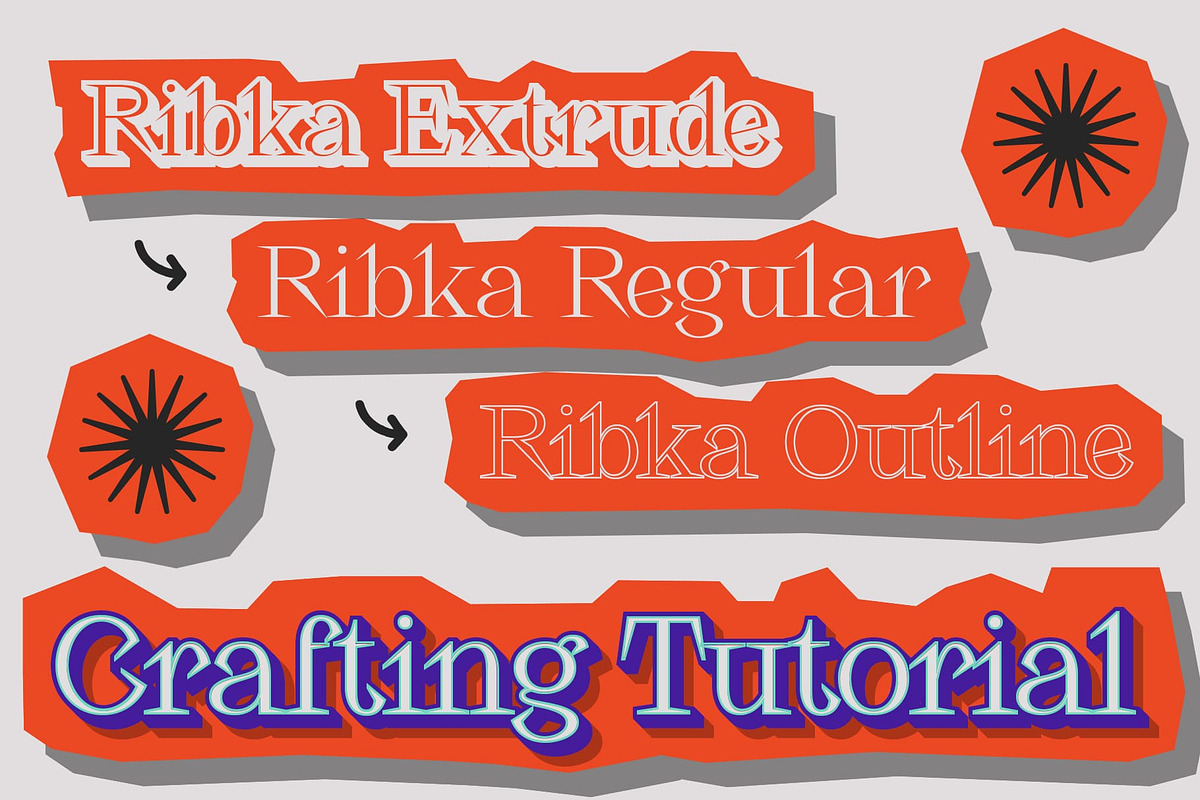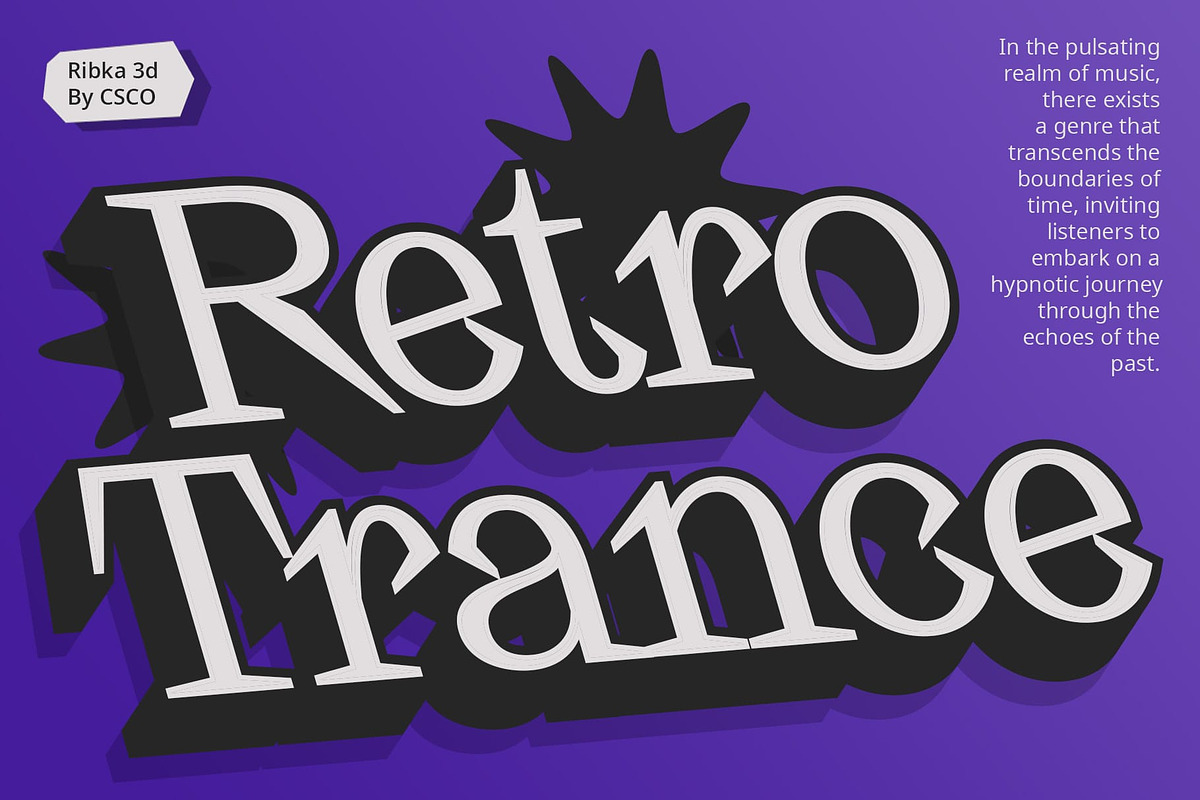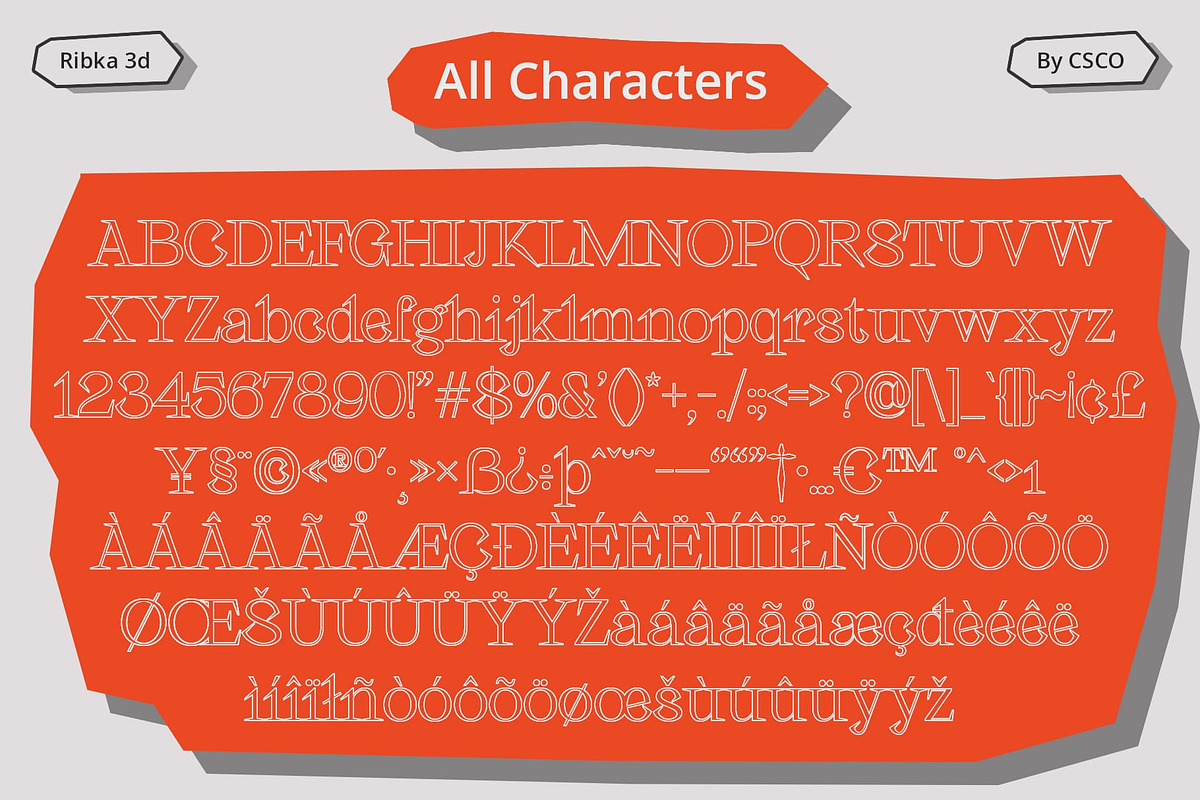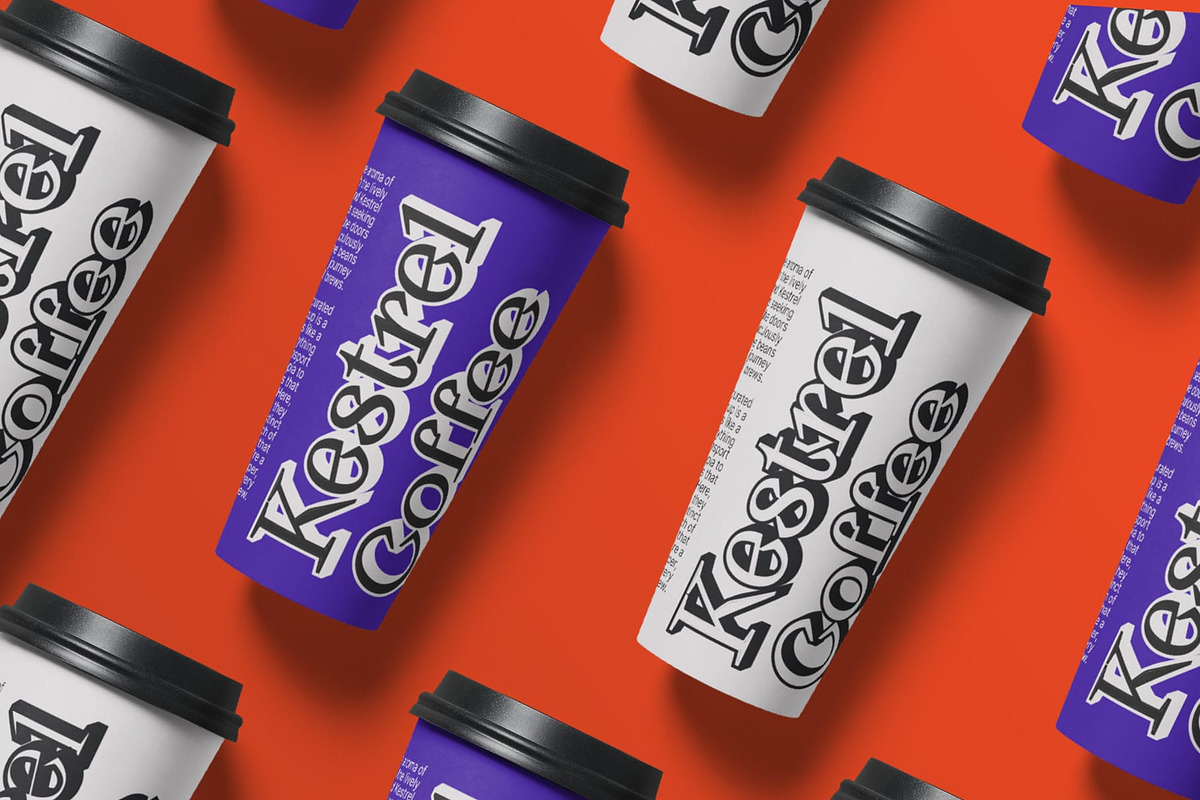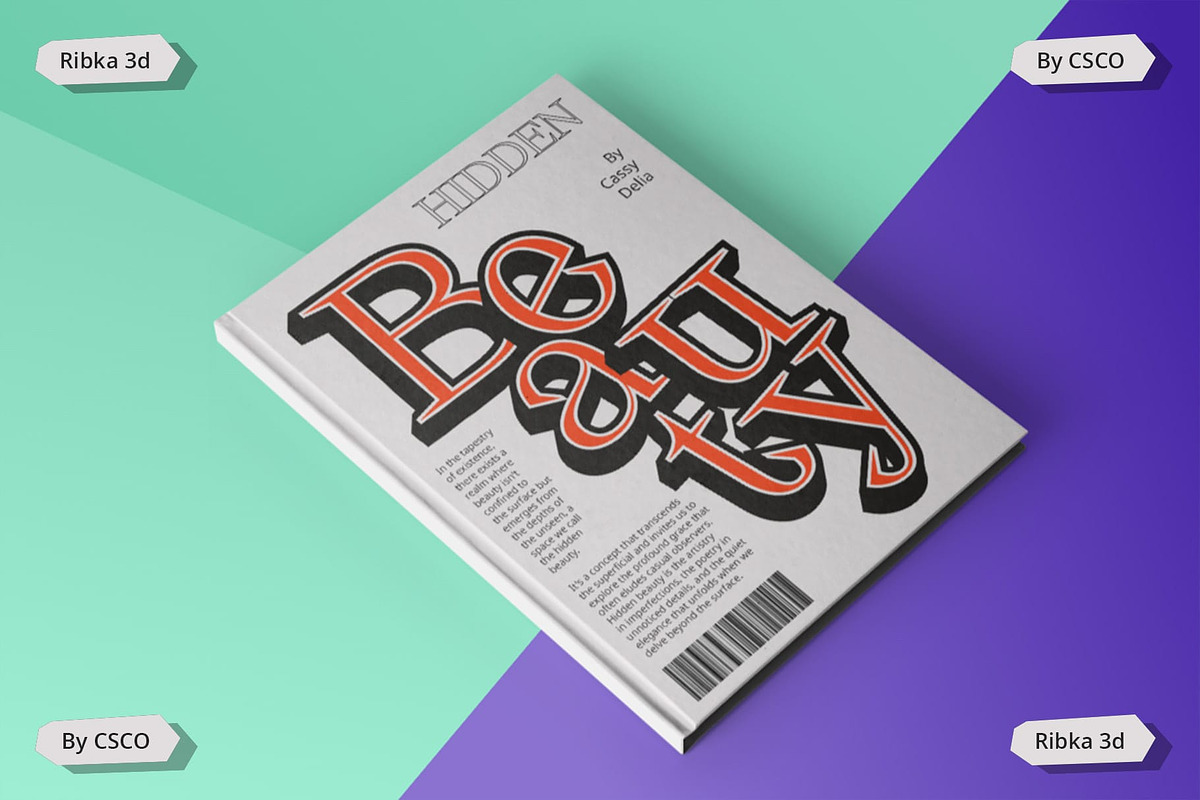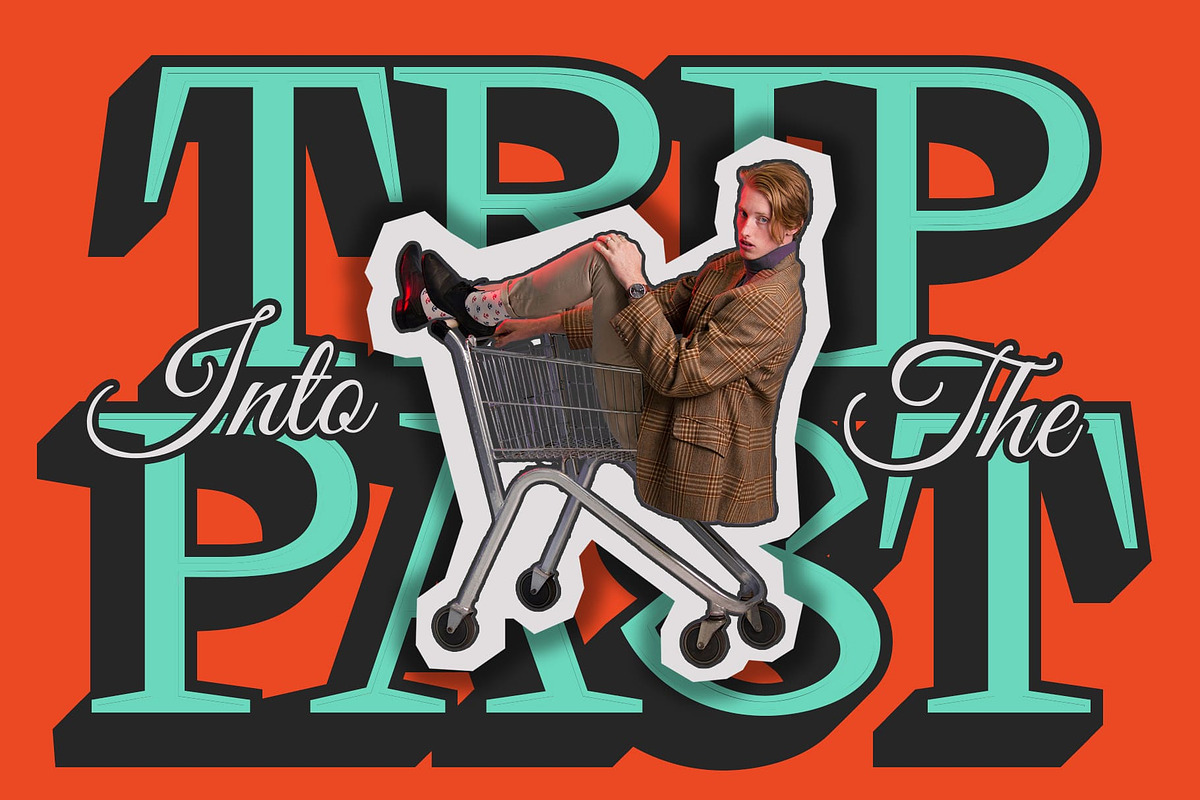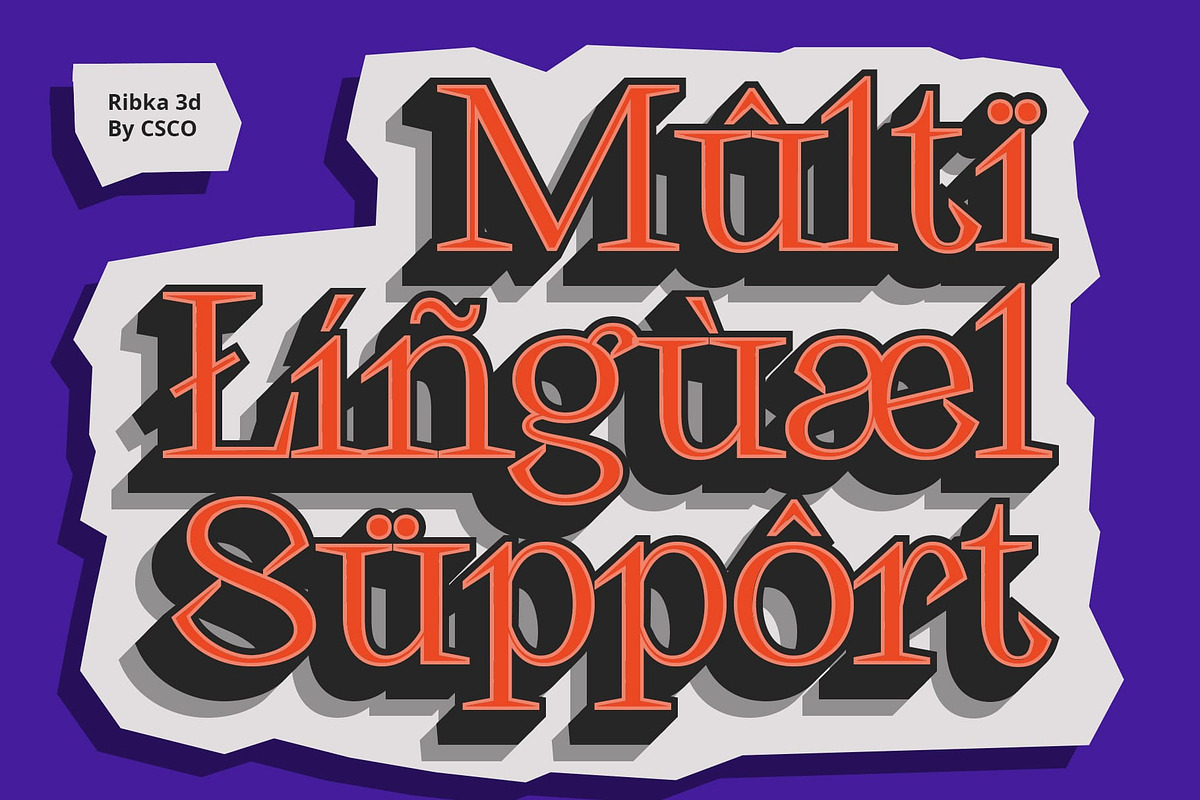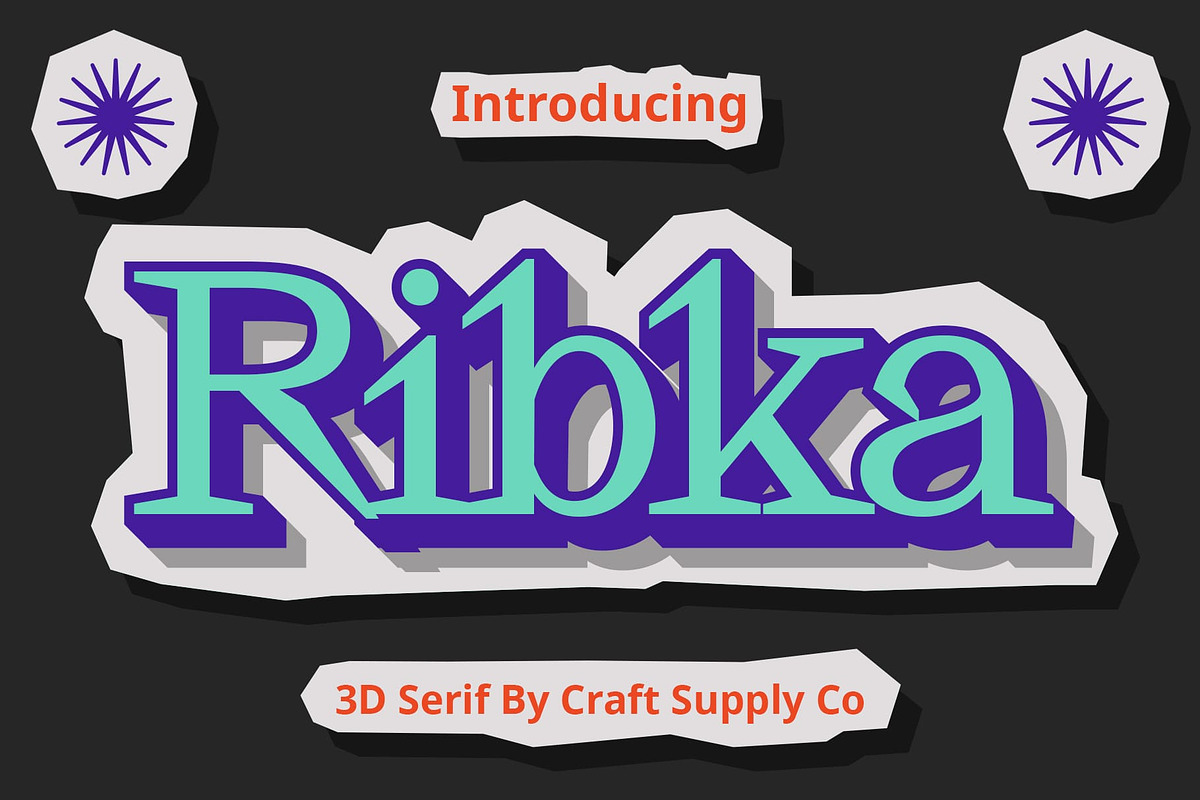
Ribka 3D
Ribka 3D: A Serene Fusion of Precision and Depth
Unveiling the Sharp Elegance Explore the world of Ribka 3D, a font where pointed serifs craft an identity that is both sophisticated and captivating, adding a unique character to each letter.
Crafting a 3D Symphony Delve into the captivating realm of this font, where every character is meticulously infused with a 3D effect, adding a layer of depth that turns ordinary text into a visual masterpiece.
An Eye-Catching Marvel Ribka 3D transcends the ordinary; its combination of sharp serifs and 3D effects makes it an absolute visual delight, ensuring that every glance at the text becomes an enchanting experience.
Versatility with Precision and Depth Unlock the versatility of Ribka 3D in various design applications. Whether in print or digital media, this font’s precision and 3D allure enhance everything from editorial layouts to branding materials, leaving a lasting impression.
In Conclusion: Ribka 3D – Where Precision Meets Dimensionality This font is not just a font; it’s a design statement. With its sharp serifs and captivating 3D effects, it transforms the mundane into the extraordinary, ensuring that your projects leave an indelible mark. Immerse yourself in the precision and dimensionality of this font where elegance meets depth with unparalleled grace.